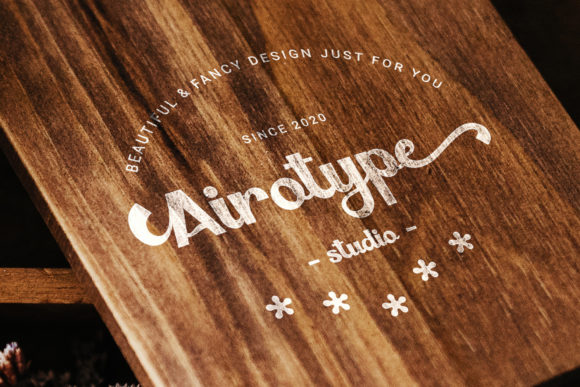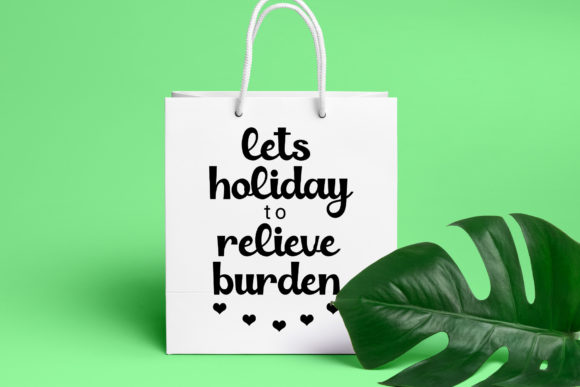
Blinkdate Font
db-ku.com - Script & Handwritten -- Blinkdate is an elegant and bold handwritten font, featuring the perfect amount of trendiness. This font is PUA encoded which means you can access all of the glyphs and swashes with ease!